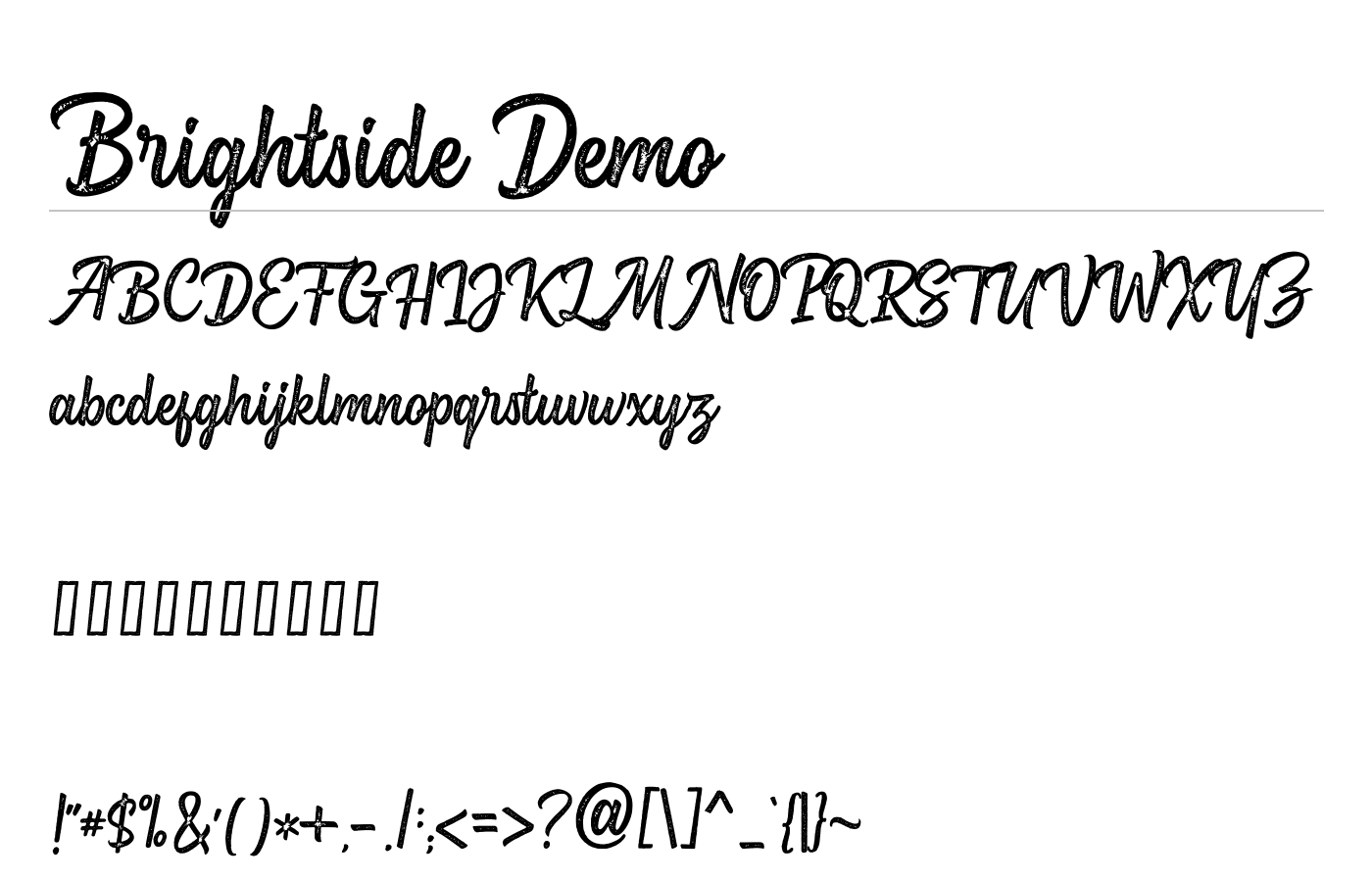
Brightside Demo is a lively script font that combines a hand-drawn, textured style with smooth, flowing strokes. Its medium weight and moderately tall x-height give it a casual yet confident feel, making it perfect for adding a friendly, creative touch to branding, packaging, and headlines. This font works especially well where a handcrafted, approachable vibe is desired without sacrificing readability.
Brightside Demo Font
About Brightside Demo Font